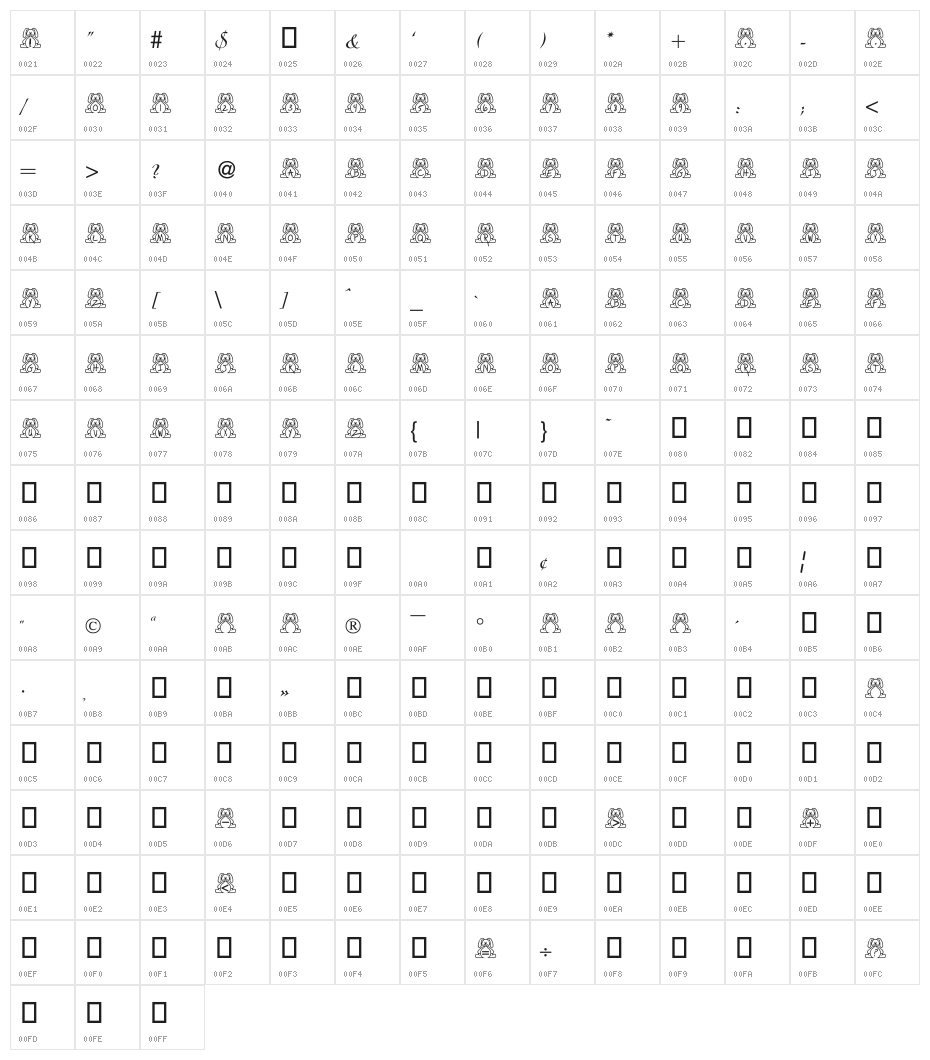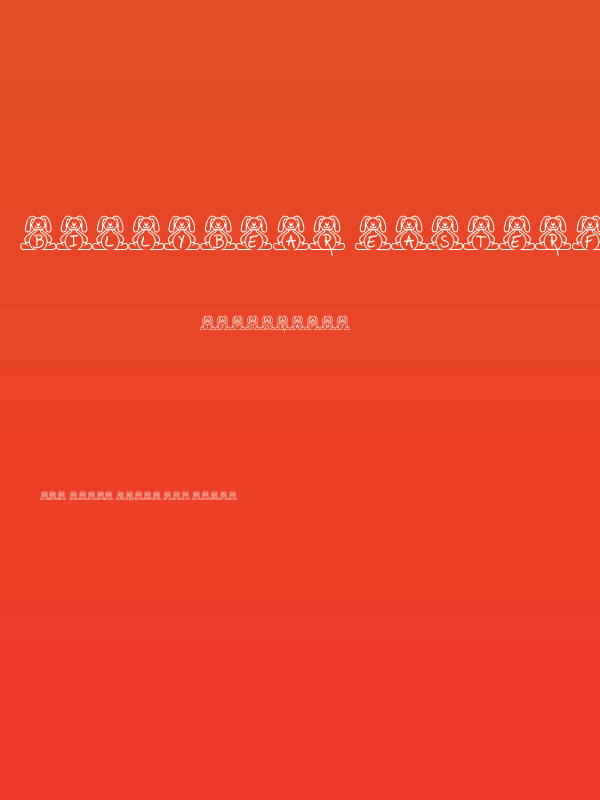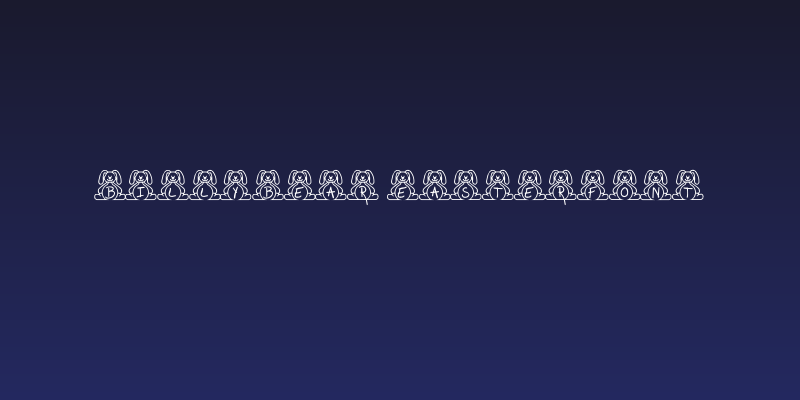
BillyBear EasterFont Font
| Stile generale | Playful, Festive |
| Caso d'uso | Headlines, Decorative text, Themed projects |
| Progetti proposti | Ideal for Easter cards, children's party invitations, playful branding, and festive decorations. |